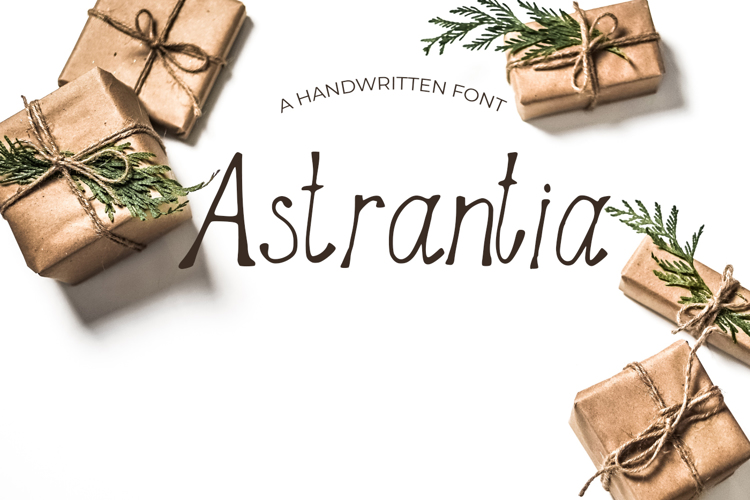
Astrantia Font
About Astrantia Font
It’s a wonderful font with a unique, detailed and handmade look.
These fonts look amazing in all caps with a wide-set spacing if you want to try a classy look or beautiful on its own in the capital and lowercase letters for something completely timeless.
Perfect for gorgeous logos, displays, headers, invitations, save the dates, weddings, titles, web layouts, and branding, etc.